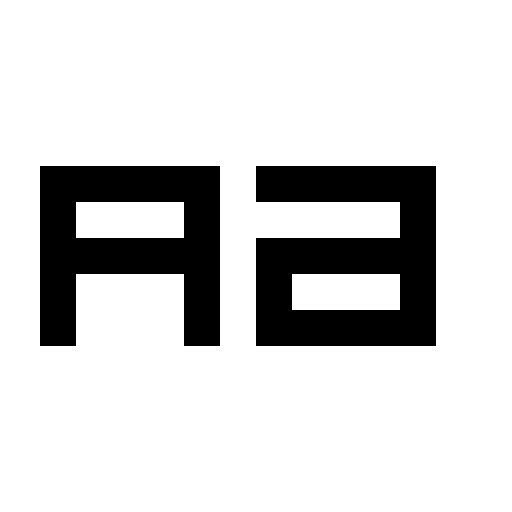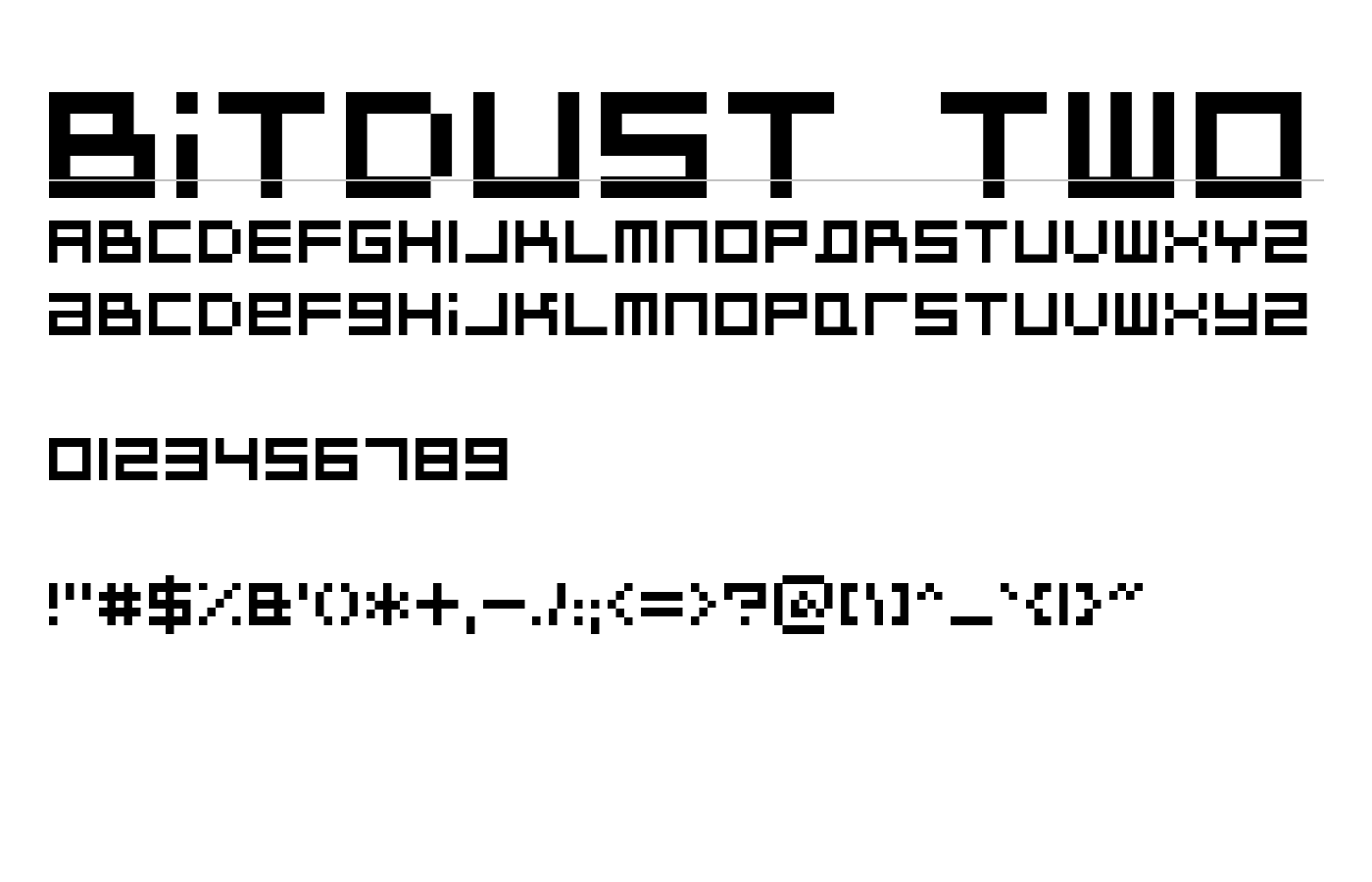
BitDust Two is a bold, geometric sans serif font with a strong pixelated, digital aesthetic that evokes retro computer graphics and video game culture. Its rigid, blocky letterforms and consistent stroke widths make it ideal for modern tech, gaming, and futuristic branding, especially in headlines, logos, and digital interfaces where clarity and impact are key. This font works best in designs that want to channel a nostalgic yet cutting-edge feel with a playful, tech-savvy personality.
BitDust Two Font
About BitDust Two Font